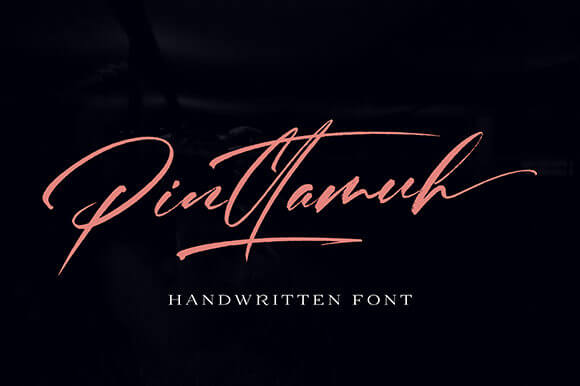
Pinttamuh Classic And Sophisticated Script Font. Pinttamuh is a classic and sophisticated script with a unique style. Fall in love with its elegant look!